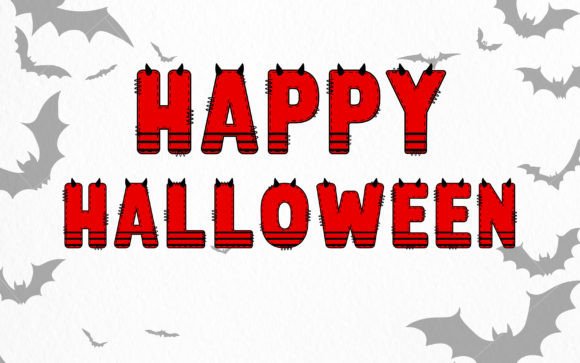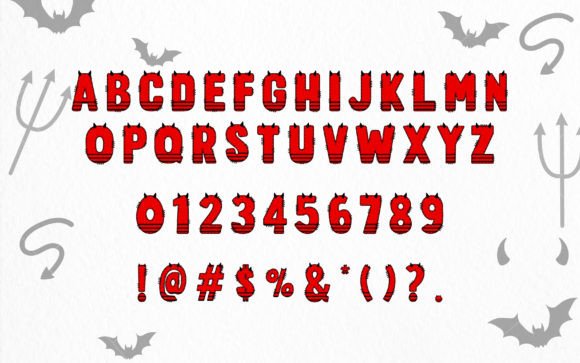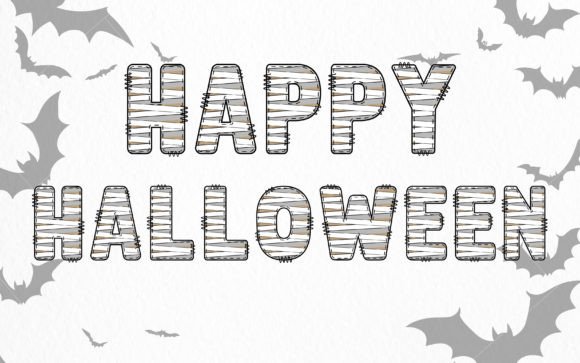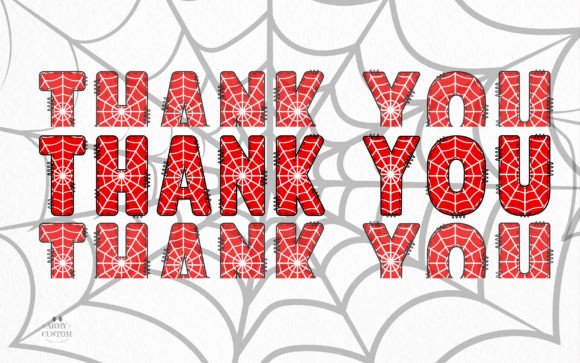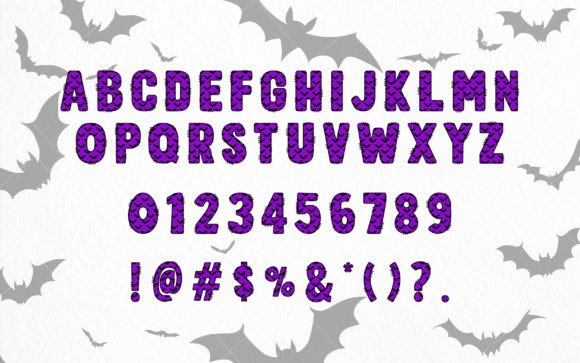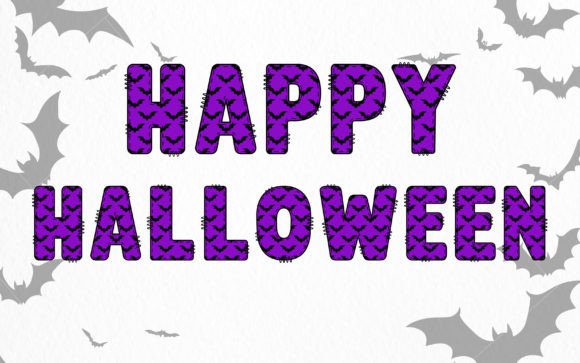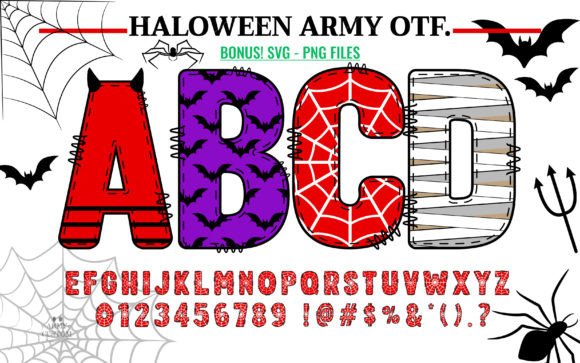
Introducing the Spellbinding Halloween Army Set Font
Are you ready to add a touch of magic to your creations this Halloween season? Look no further than the Halloween Army Set Font, a unique and spellbinding font that’s sure to make your designs stand out. In this article, we’ll explore the features and benefits of this enchanting font, and show you how to make the most of it in your arts and crafts projects, scrapbooking endeavors, and more.
A Font Like No Other
The Halloween Army Set Font is a one-of-a-kind font that’s specifically designed to capture the spirit of Halloween. With its bold, playful, and slightly spooky design, this font is perfect for adding a touch of whimsy and fun to your creations. Whether you’re designing invitations, banners, or wall art, this font is sure to cast a spell on your audience.
The Halloween Army Set Font is an incredibly versatile font that can be used in a wide range of creative projects. Here are just a few ideas to get you started:
- Arts and Crafts Projects: Add a touch of magic to your arts and crafts projects, such as making spooky decorations, creating Halloween cards, or designing creepy collages.
- Scrapbooking: Give your scrapbooking endeavors a unique and playful twist with this font. Use it to title your pages, add captions to your photos, or create eye-catching journaling.
- Stationery and Cards: Infuse your stationery and cards with personality using the Halloween Army Set Font. Create spooky invitations, Halloween-themed greeting cards, or add a touch of whimsy to your everyday correspondence.
- Blog Banners and Backgrounds: Catch every eye with enchanted blog banners and backgrounds that showcase your creativity and style.
- Wall Art: Transform your interiors with mesmerizing wall art that features the Halloween Army Set Font. Create spooky signs, creepy quotes, or add a touch of magic to your home decor.
A Vibrant Toolkit for Designers and Crafters
The Halloween Army Set Font is more than just a font – it’s a vibrant toolkit for designers and crafters. With its wide range of creative possibilities, this font is sure to inspire you to try new things and push the boundaries of your creativity.
Whether you’re a seasoned designer or a crafty hobbyist, this font is easy to use and adaptable to your needs. Here are just a few reasons why:
- Easy to Read: The Halloween Army Set Font is clear and easy to read, making it perfect for use in a wide range of creative projects.
- Scalable: This font is highly scalable, allowing you to use it in everything from small captions to large banners.
- Customizable: Experiment with different colors, textures, and effects to make the Halloween Army Set Font your own.
Revel in the Joy of Creation
The Halloween Army Set Font is more than just a font – it’s an invitation to revel in the joy of creation. With its playful and imaginative design, this font is sure to inspire you to try new things and have fun with your creative projects.
In conclusion, the Halloween Army Set Font is a unique and spellbinding font that’s sure to add a touch of magic to your creations. With its wide range of creative possibilities, ease of use, and adaptability, this font is perfect for designers and crafters of all levels. So why wait? Download the Halloween Army Set Font today and start creating your own spellbinding designs.